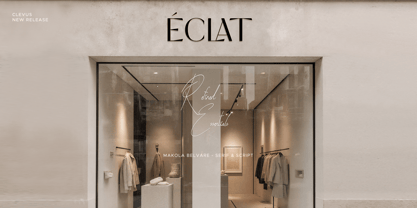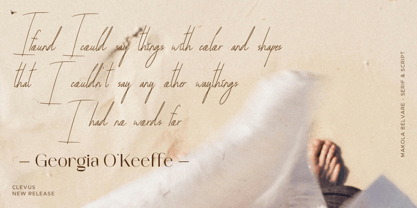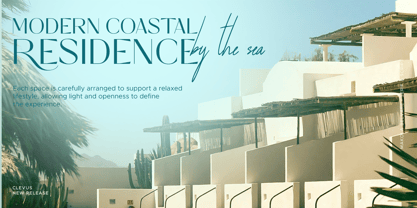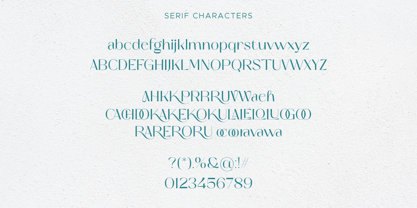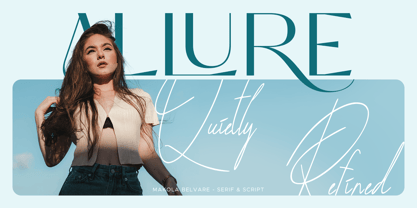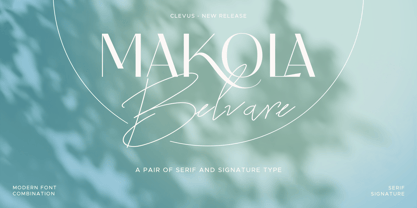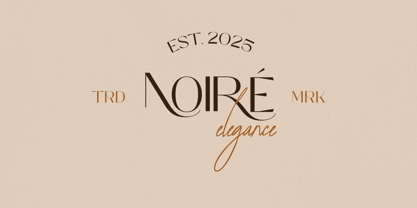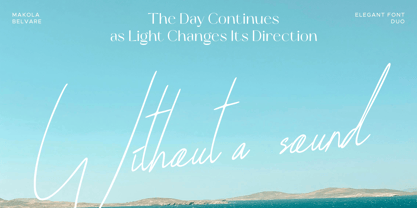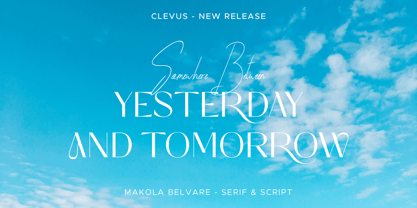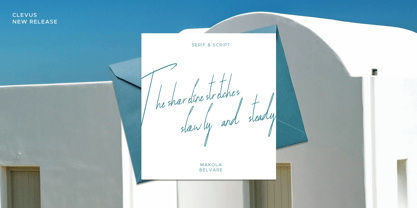
Makola Belvare Font Duo
by Clevus
The Makola Belvare Font Duo Font Family was designed by Alfinu Zafir and published by Clevus. Makola Belvare Font Duo contains 2 styles and family package options. More about this family
Proudly present Makola Belvare.
Makola Belvare Font Duo is a unique font design consisting of a combination of a classy serif font and a classic script handwritten font. It is specifically created to cater to the design needs of elegant and feminine themes, such as in magazines or branding materials. The serif font has a classic and timeless character, while the script font is designed with a personal and human touch, giving a modern and creative feel. This font duo is perfect for use in various design media such as magazines, books, posters, brand identities, logos, and more. By choosing Makola Belvare Font Duo, you can add a touch of professionalism and modernity to your designs, while also providing quality and character to every design you create.
Designers: Alfinu Zafir
Foundry: Clevus